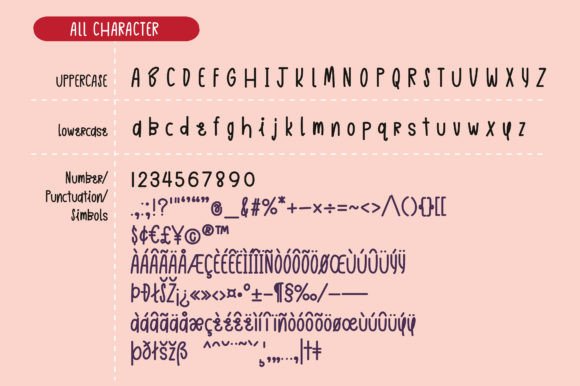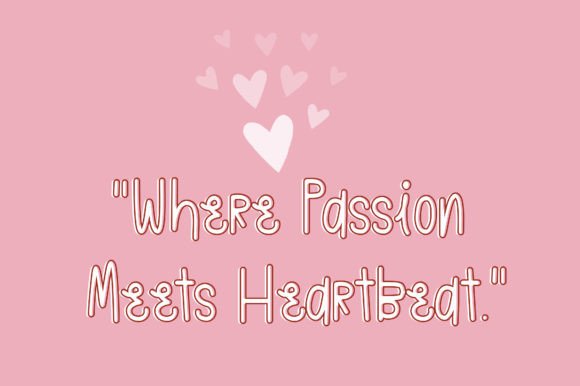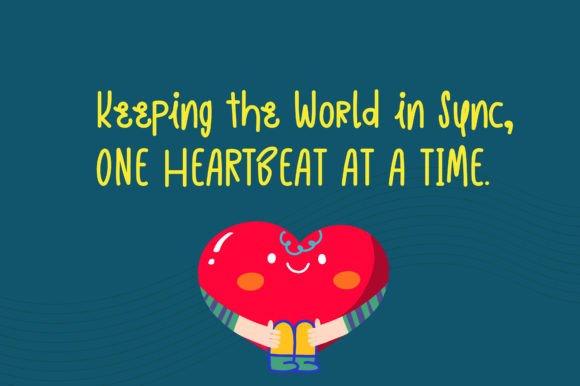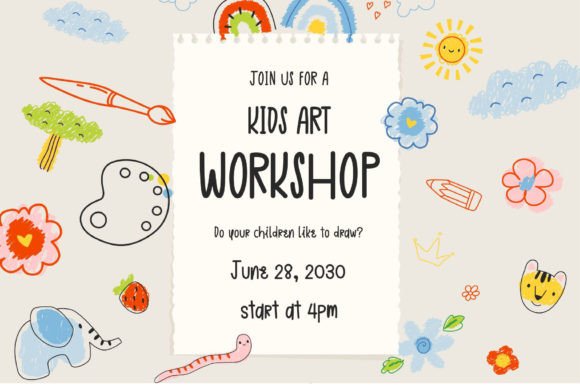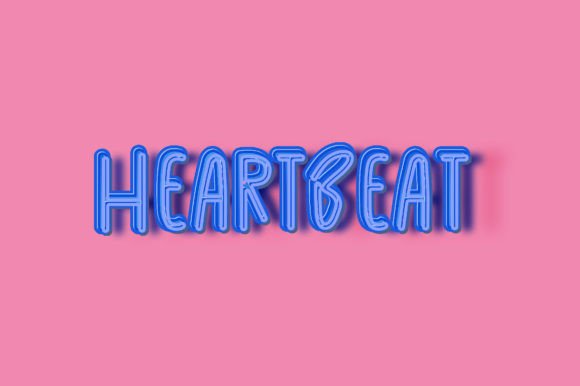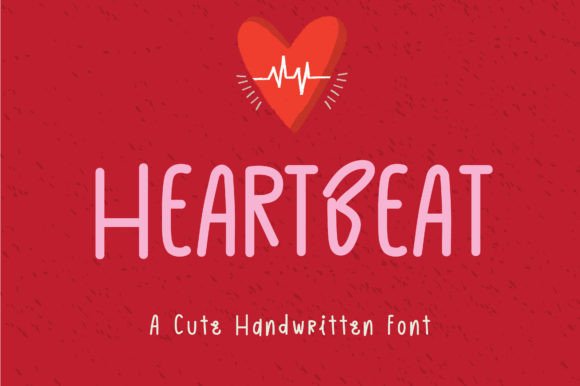
Introducing Heart Beat Font: The Sweet and Friendly Handwritten Font
Are you tired of using the same old fonts in your designs? Look no further! Heart Beat Font is a beautiful, sweet, and friendly handwritten font that’s perfect for adding a personal touch to your creations. Its natural and unique style makes it incredibly versatile, and the only limit is your imagination!
What Makes Heart Beat Font So Special?
Heart Beat Font is a one-of-a-kind handwritten font that’s designed to make your designs stand out. Its sweet and friendly style is perfect for a wide range of projects, from wedding invitations and baby shower cards to blog posts and social media graphics. The font’s natural and unique style gives it a personal touch that’s hard to find in other fonts.
One of the best things about Heart Beat Font is its versatility. It can be used in a wide range of designs, from:
• Baby shower cards and decorations
• Blog posts and social media graphics
• Branding and packaging design
• DIY crafts and scrapbooking
Whether you’re a designer, crafter, or DIY enthusiast, Heart Beat Font is the perfect addition to your toolkit.
Why Choose Heart Beat Font?
So why choose Heart Beat Font over other fonts? Here are just a few reasons:
• Unique style: Heart Beat Font has a one-of-a-kind style that’s sure to make your designs stand out.
• Easy to read: Despite its unique style, Heart Beat Font is easy to read and understand, making it perfect for body text and headlines.
• Versatile: Heart Beat Font can be used in a wide range of designs, from formal to informal.
• High-quality: Heart Beat Font is a high-quality font that’s designed to look great in any design.
Tips for Using Heart Beat Font
Here are a few tips for getting the most out of Heart Beat Font:
• Pair it with other fonts: Heart Beat Font looks great when paired with other fonts, such as sans-serif fonts for a modern look or serif fonts for a more traditional look.
• Use it for headlines and body text: Heart Beat Font is easy to read, making it perfect for both headlines and body text.
• Experiment with colors: Heart Beat Font looks great in a wide range of colors, from bright and bold to soft and pastel.
Heart Beat Font is a sweet and friendly handwritten font that’s perfect for adding a personal touch to your designs. Its natural and unique style makes it incredibly versatile, and the only limit is your imagination! Whether you’re a designer, crafter, or DIY enthusiast, Heart Beat Font is the perfect addition to your toolkit.